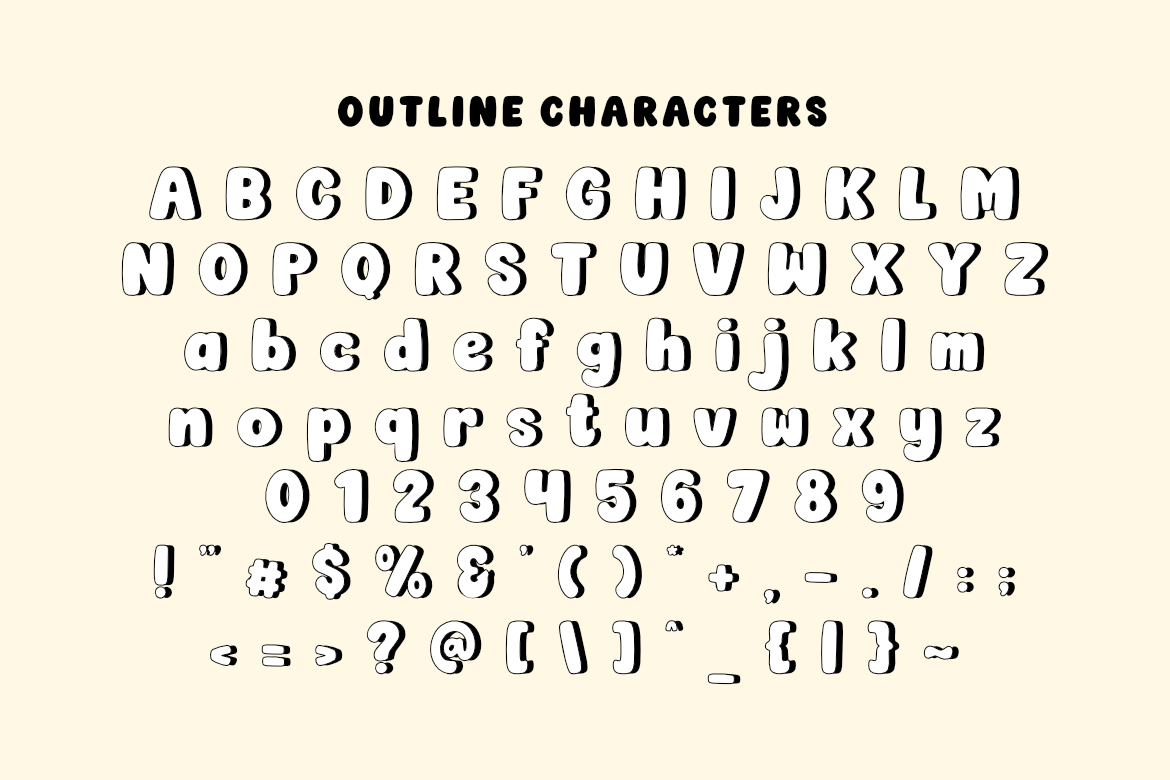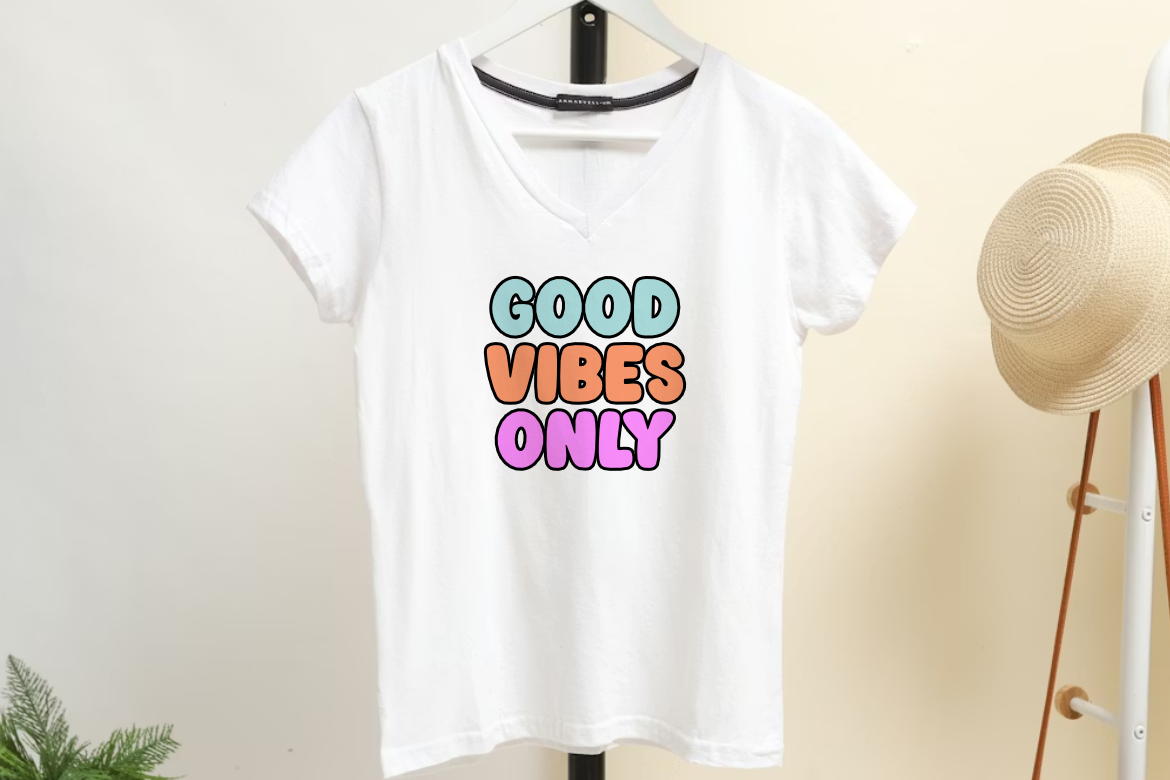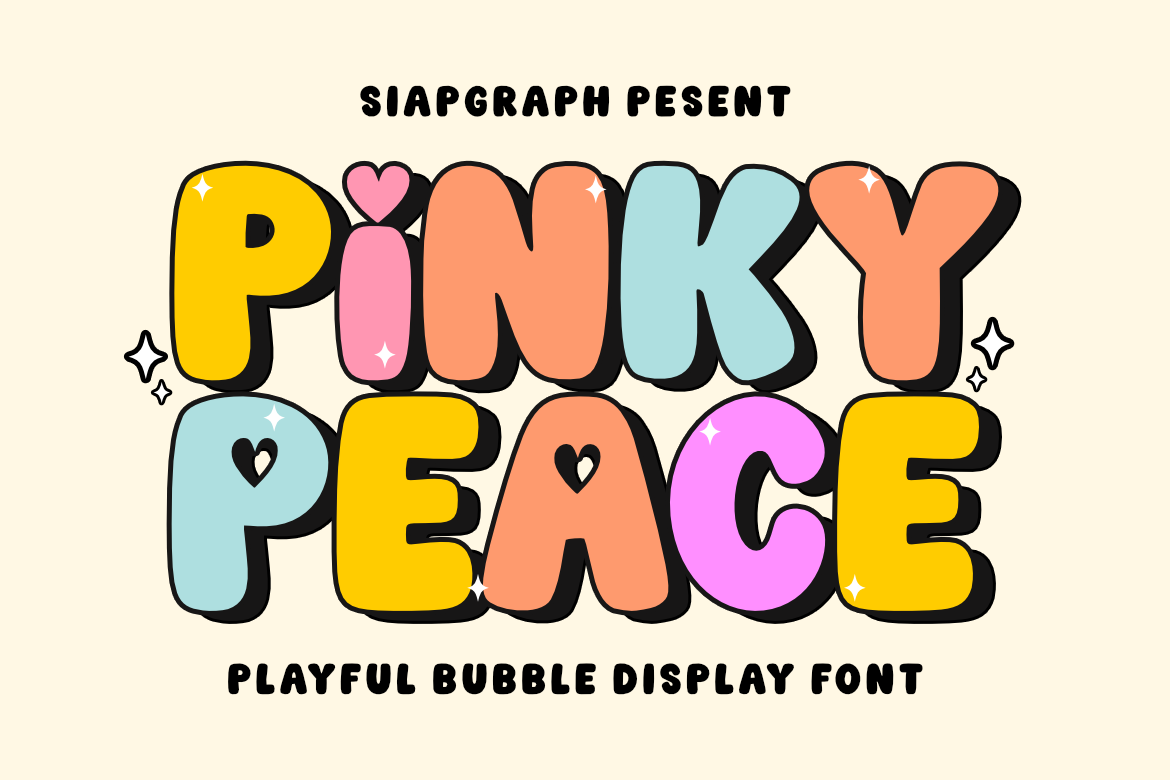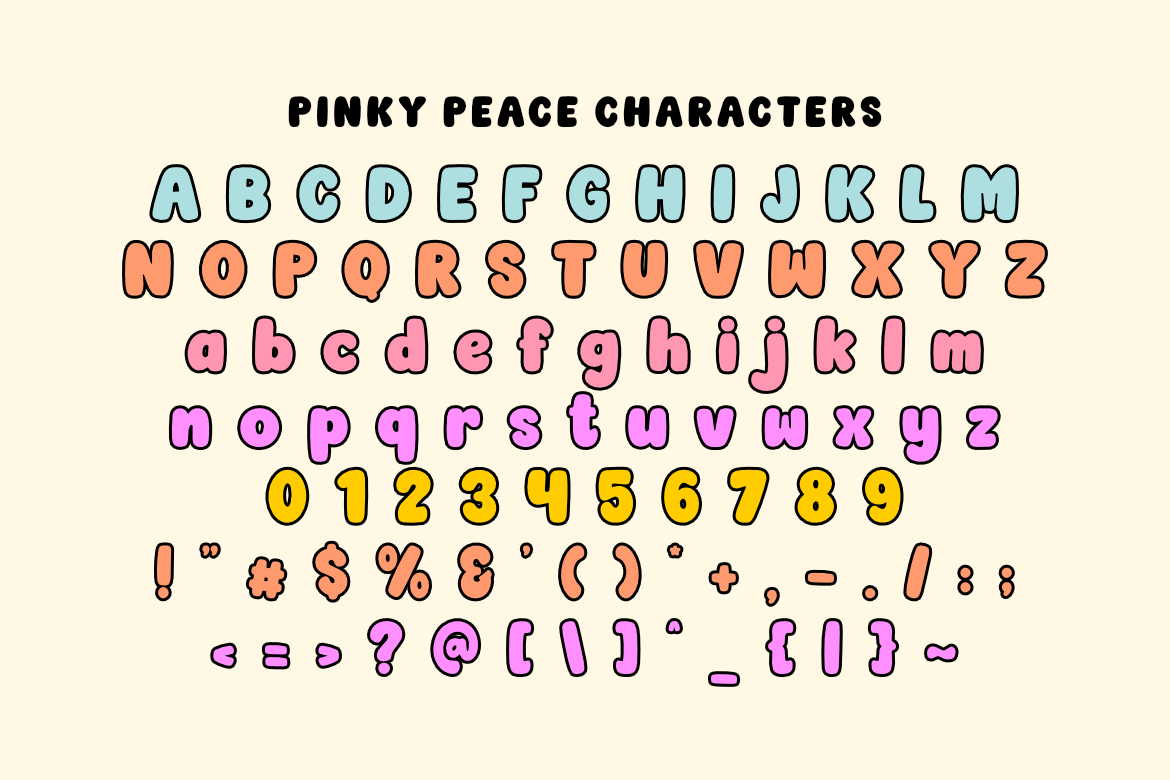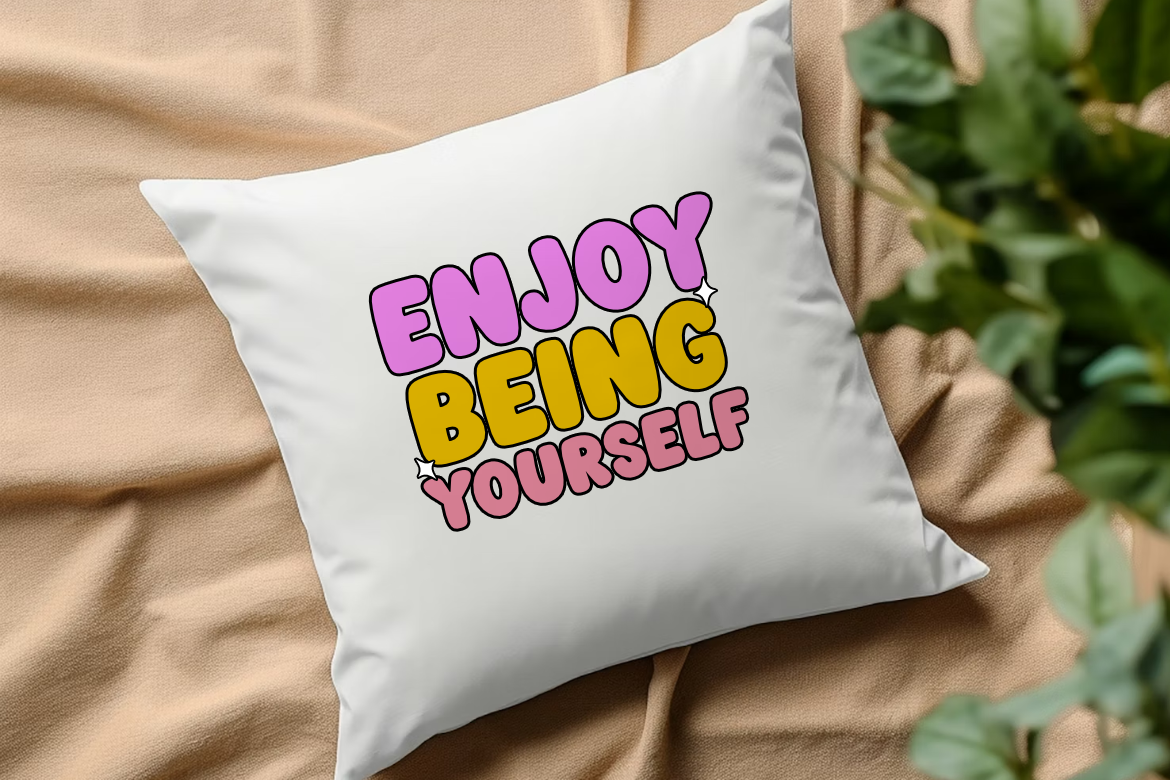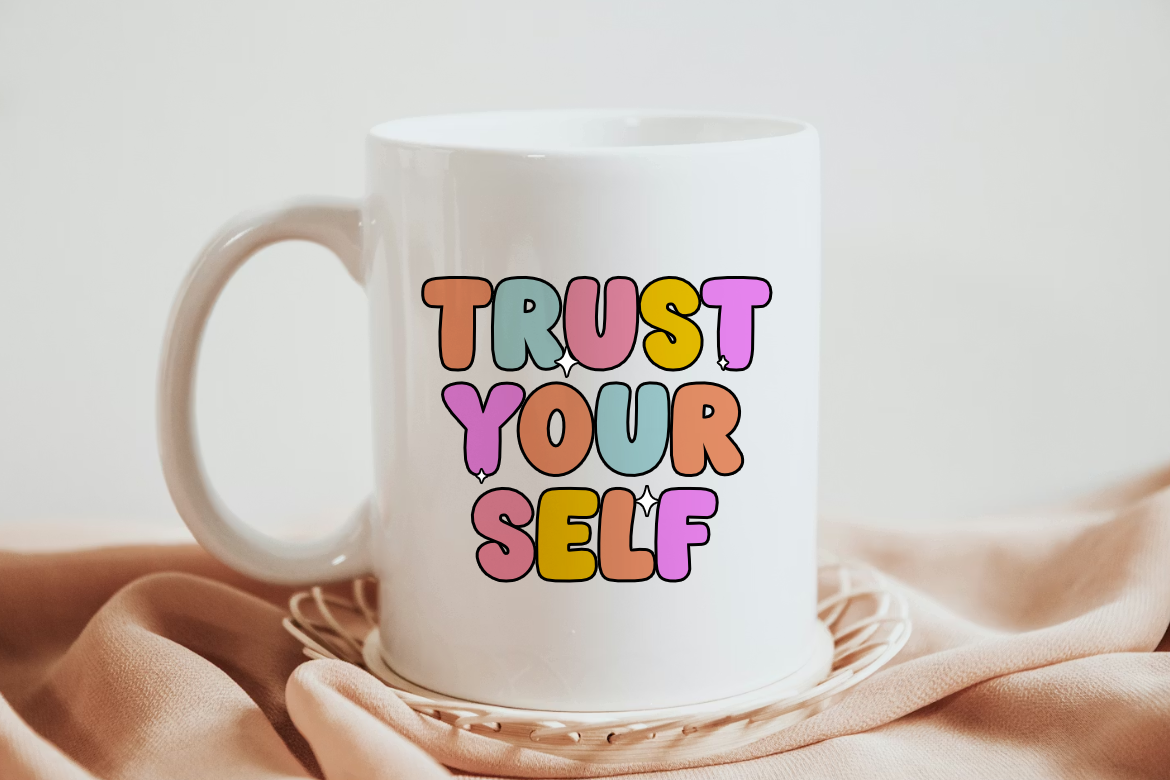
Pinky Peace - Playful Bubble
Bring your ideas to life with Pinky Peace, a charming and playful bubble display font that exudes playfulness! Its soft curves and bold appearance are perfect for creating eye-catching headlines, posters, social media graphics, and branding. Add a dreamy touch to your designs with this delightful font that’s both fun and versatile.